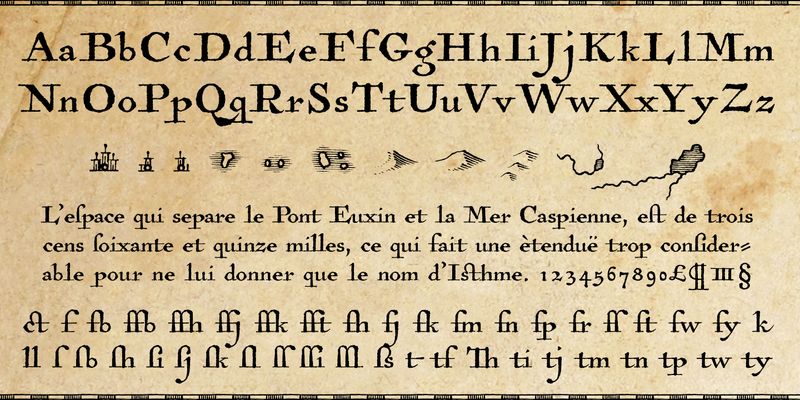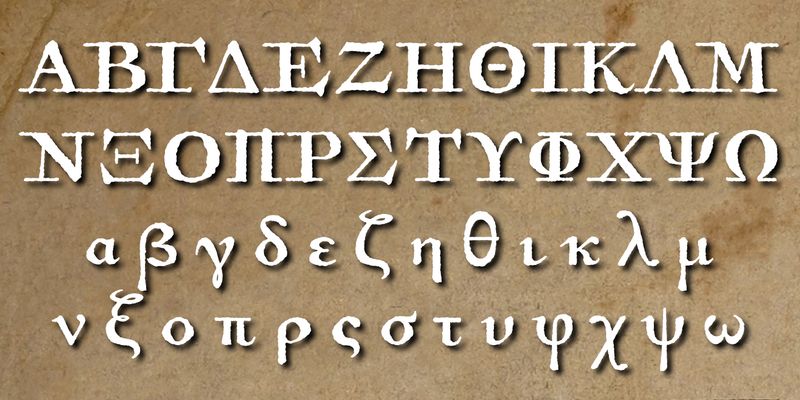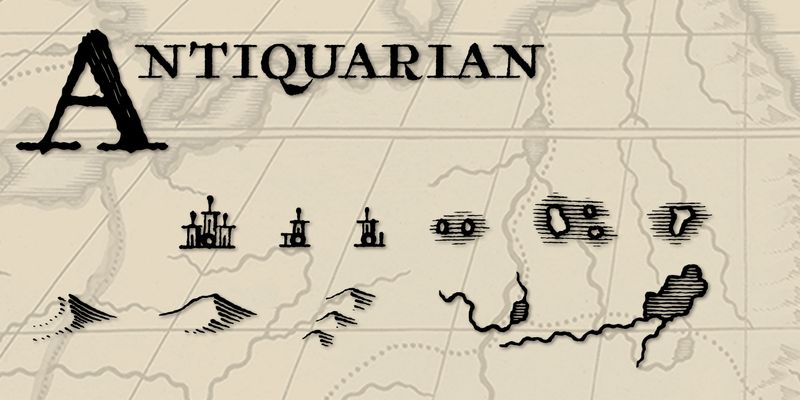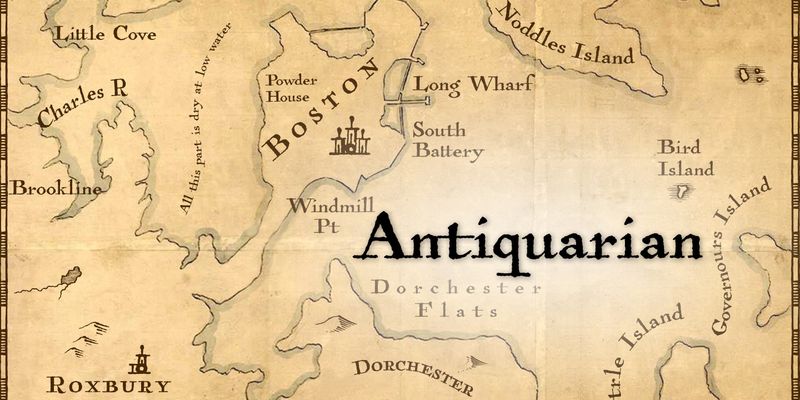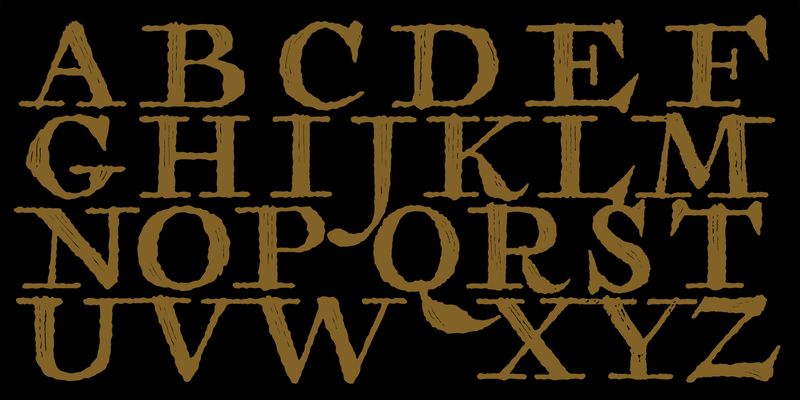
Antiquarian™ replicates the hand-lettered text in Henri Abraham Chatelain’s famous 1700s Atlas Historique. Has numerous ligatures, Latin and Greek alphabets, and several cartographic ornaments.